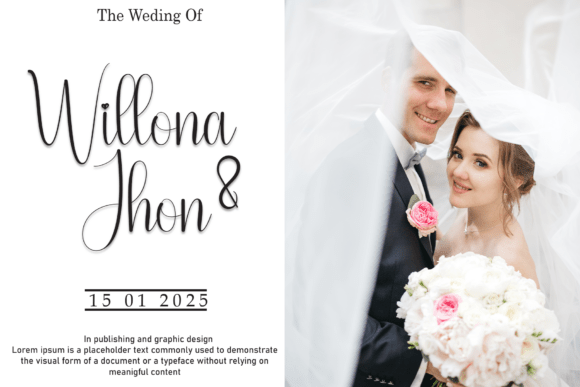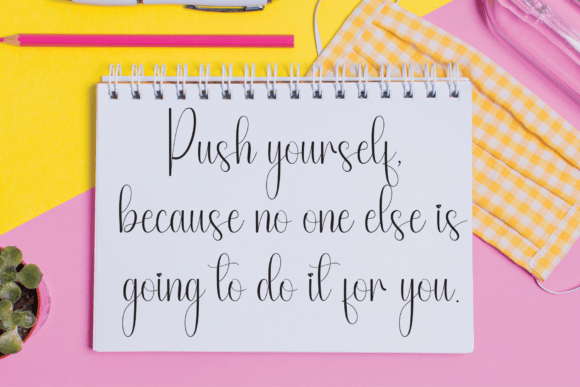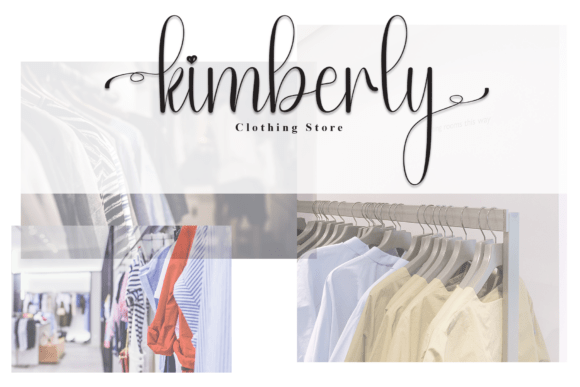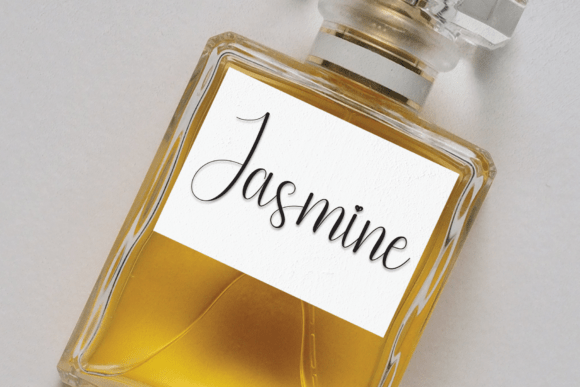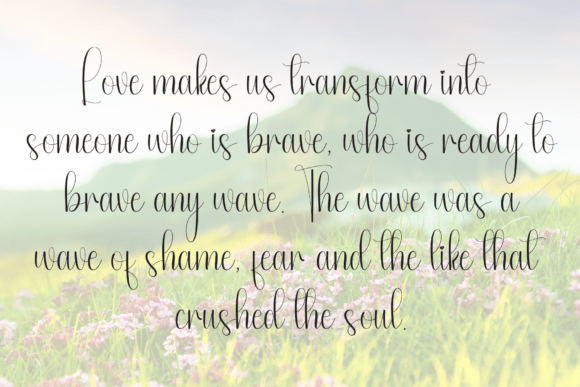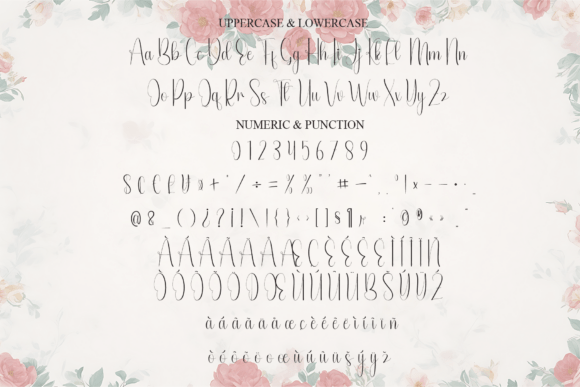
The Power of a Perfect Font
Have you ever been stuck on a design project, struggling to find the right words to express your vision? I know I have. It’s those moments of frustration that often lead to a spark of creativity. For me, it was the discovery of Beauty Font – a handwritten script font that has become my go-to choice for adding a touch of elegance to any design.
Beauty Font is more than just a pretty face; it’s a tool designed to elevate your branding, invitations, and stationery with its smooth curves and natural flow. Whether you’re a seasoned designer or just starting out, this versatile font is sure to bring a personal and sophisticated touch to your work. Its timeless, refined look makes it a valuable asset for any designer looking to create stunning visual stories.
Beauty Font Key Features
- Unique Characteristics: Beauty Font features elegant, cursive script with refined strokes and subtle flourishes, making it suitable for formal and creative applications.
- Font Style Variations: Includes multiple font styles, such as Regular, Italic, Bold, and Bold Italic, providing designers with options for emphasis and contrast.
Beauty Font Review
Overall, I’m impressed with the Beauty Font – it’s a beautiful, elegant script font that can elevate any design project. ✨
- Unique, flowing lines that create a sense of movement and sophistication.
- Variety of styles, including bold and italic, to suit different design needs.
- High-resolution glyphs, making it perfect for print and digital use.
- Some characters may be too ornate, making them difficult to read in smaller sizes or at a glance.
- Lack of support for certain languages, which may limit its use in international design projects.
- May not be suitable for designs that require a more minimalist or modern aesthetic.
Overall, I think the Beauty Font is a great choice for designers who want to add a touch of elegance and sophistication to their projects. While it may not be perfect for every design need, its unique charm and versatility make it a valuable addition to any font collection.
Beauty Font: A Practical Application Guide
Tips: Use Beauty Font for headings and titles to add a touch of elegance to your designs. Experiment with different font sizes and colors to create a unique look.
Tips: Use Beauty Font for typography-heavy designs, such as magazine covers or wedding invitations. Experiment with different font combinations to create a unique look.
Tips: Use Beauty Font for titles and headings to add a touch of sophistication to your presentations and documents. Experiment with different font sizes and colors to create a unique look.
Beauty Font is perfect for:
- Magazine covers and editorial design
- Brand logos and typography-heavy designs
Alternatives to Beauty Font for Designers
Great Vibes is a beautiful, elegant script font that works well for creating a sense of luxury and sophistication. It is ideal for use in invitations, greeting cards, and other materials where a high-end feel is desired.
Compared to Beauty Font, Great Vibes has a more refined and polished appearance, making it a better choice for formal or high-end designs. However, Beauty Font has a more playful and whimsical feel that may be better suited for casual or creative projects.
Pacifico is a beautiful, modern script font that is perfect for creating a relaxed and beachy vibe. It is ideal for use in designs related to travel, fashion, or lifestyle.
Compared to Beauty Font, Pacifico has a more casual and laid-back feel, making it a better choice for designs that require a sense of ease and relaxation. However, Beauty Font has a more feminine and elegant appearance that may be better suited for designs that require a touch of sophistication.